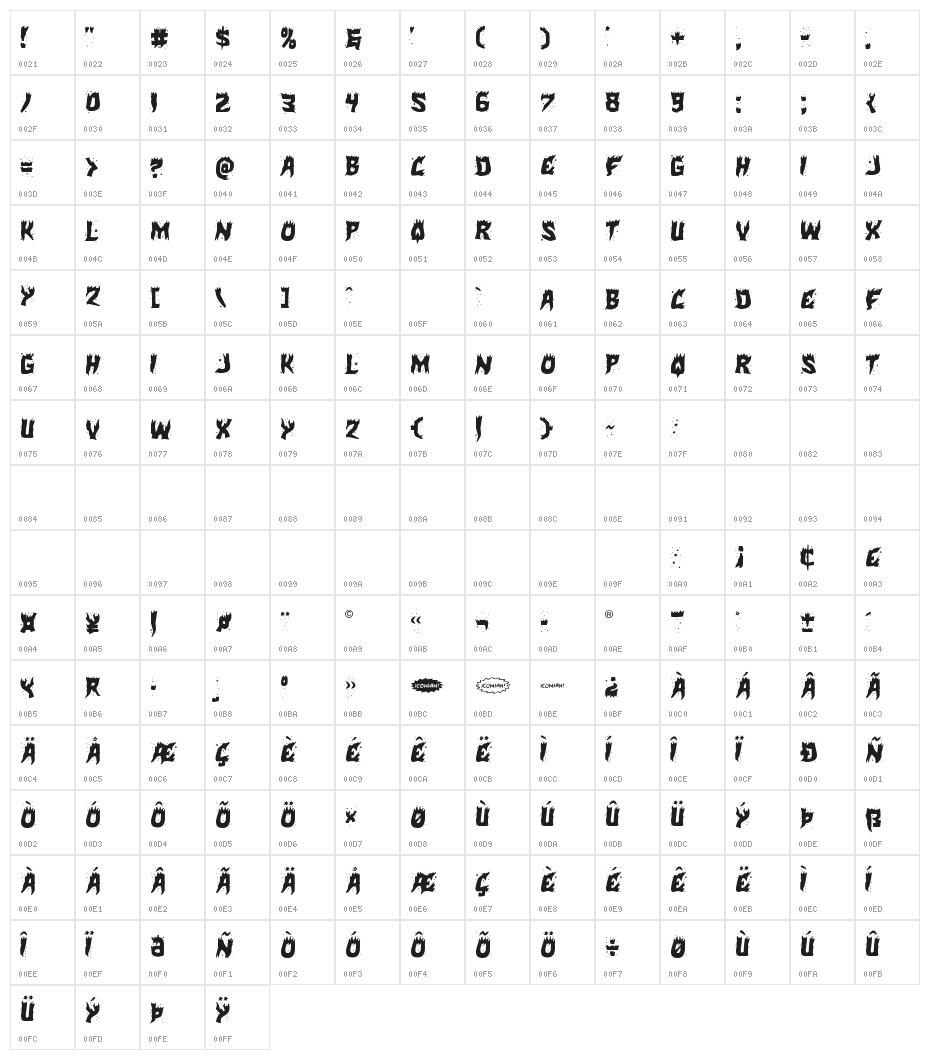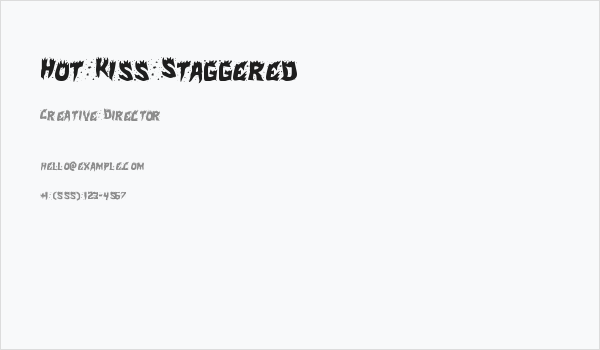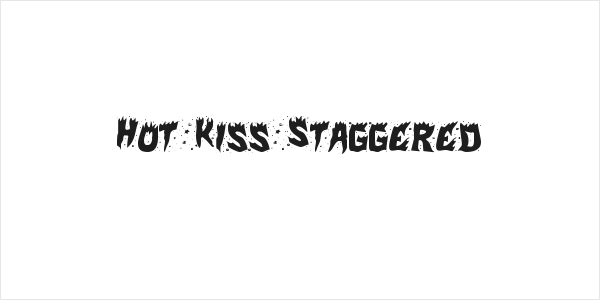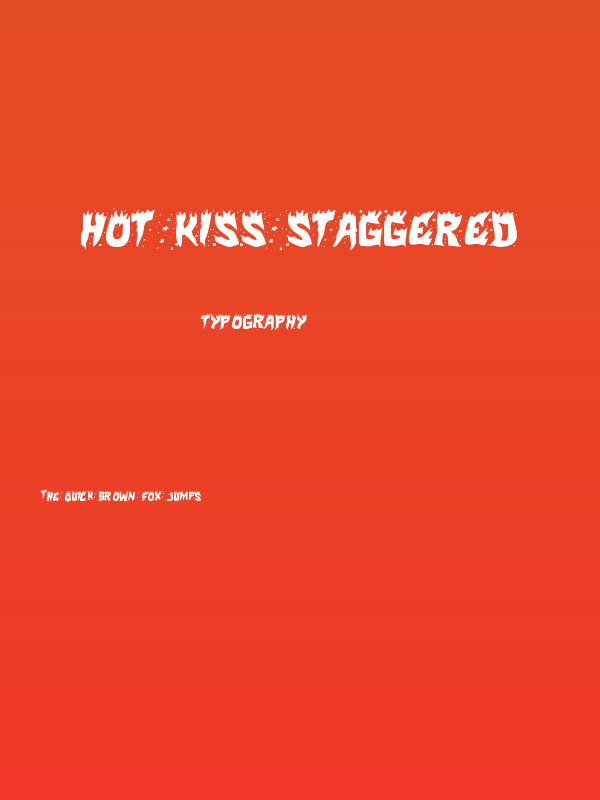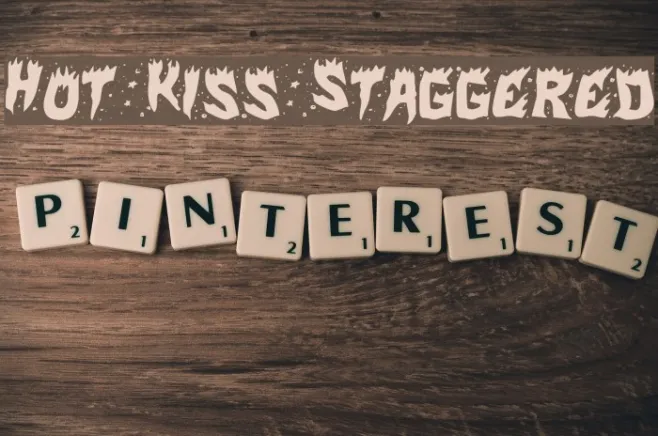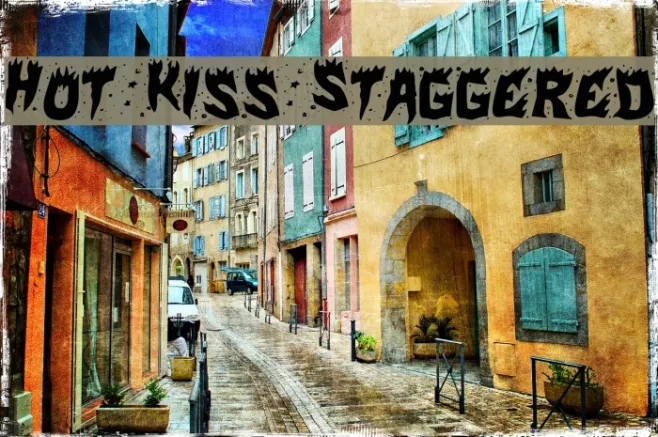
Hot Kiss Staggered Font
Hot Kiss Staggered Description
This font features a bold and jagged design with an edgy, distressed appearance. The characters have a unique, irregular outline that gives them a dynamic and energetic feel. The uppercase and lowercase letters maintain a consistent style, with sharp angles and a slightly chaotic look. The numbers and special characters follow the same aesthetic, making the font cohesive and visually striking. The overall design is reminiscent of a horror or punk theme, suitable for projects that require a bold and unconventional typeface.
| Proposed Projects | Ideal for horror-themed posters, punk rock album covers, Halloween event flyers, and edgy branding materials. |